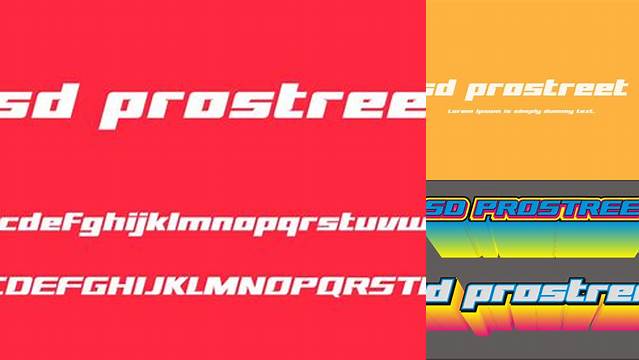
What is SD Prostreet Font?
So, you're looking for the SD Prostreet Font? Awesome! Let's dive right into what this font is all about. SD Prostreet Font, as the name suggests, is a typeface inspired by the Need for Speed: ProStreet game. It's known for its bold, aggressive, and sporty look, making it a popular choice for designs that need a touch of speed and adrenaline. Think logos, posters, banners, and even video game graphics – anything that needs to scream “fast” and “dynamic.” It's not just a font; it's a statement.
Now, you might be wondering why this particular font has gained such traction. Well, its distinctive style sets it apart from the more generic typefaces out there. It captures the essence of street racing culture and brings a sense of raw energy to any project it graces. This font is characterized by sharp angles, thick strokes, and a generally robust structure, perfect for grabbing attention. Whether you’re designing a car advertisement or a tech-themed poster, SD Prostreet Font can add that extra edge you’re looking for. Plus, finding a good, free version is a game-changer for budget-conscious designers.
Using the SD Prostreet Font effectively means understanding its strengths. It’s a display font, meaning it’s best used for headlines and short bursts of text rather than lengthy paragraphs. Imagine trying to read a whole novel in this font – your eyes would probably stage a rebellion! Instead, focus on using it for titles, subheadings, and call-to-action buttons. Pair it with a simpler, more readable font for the body text to create a balanced and visually appealing design. Also, consider the color palette. Bright, contrasting colors like neon greens, electric blues, and fiery reds can amplify the font's impact, while more subdued tones can give it a sophisticated twist. Experiment and see what works best for your project. And remember, the best designs often come from pushing boundaries and trying new things.
Exploring the Origins of SD Prostreet Font
The SD Prostreet Font didn't just appear out of thin air. It's heavily influenced by the visual style of the Need for Speed: ProStreet game, which came out back in 2007. The game's developers wanted a font that reflected the high-octane, competitive nature of street racing. They needed something that felt aggressive, modern, and undeniably cool. The font that ultimately emerged captured all those qualities, becoming an iconic part of the game's branding. Even though the exact origins of the font’s creator are somewhat shrouded in mystery (it's not always easy to pinpoint the original designer of fan-made fonts), its impact is undeniable.
Over the years, the SD Prostreet Font has been embraced by designers and gamers alike. Its unique aesthetic has made it a go-to choice for projects that aim to evoke a sense of speed, power, and rebellion. Whether you're creating a poster for a local car meet or designing a logo for an esports team, this font can help you make a bold statement. Think of it as the visual equivalent of a roaring engine or a screeching tire – it’s impossible to ignore. And because it’s so closely associated with the Need for Speed franchise, it carries a certain nostalgia for those who grew up playing the game.
So, if you're looking to add a touch of retro gaming flair to your next project, the SD Prostreet Font is definitely worth considering. Its distinctive style and cultural significance make it a powerful tool for visual communication. Just remember to use it judiciously and pair it with other design elements that complement its bold aesthetic. After all, even the coolest font needs a little help to shine. The key is to understand its origins and appreciate the visual language it speaks. Once you do that, you'll be well on your way to creating designs that are both stylish and impactful. And who knows, maybe your work will inspire the next generation of font designers.